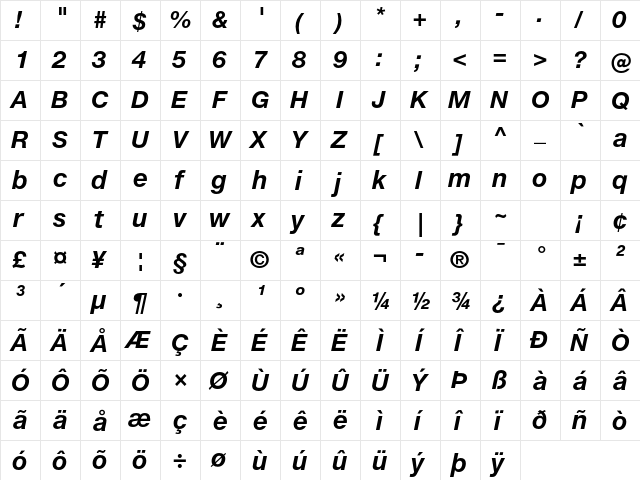
Helvetica Neue ET Pro 76 Bold Italic
| Foundry | Linotype GmbH |
| Designer | Linotype Design Studio |
Design Context for Helvetica Neue ET Pro Typeface
Helvetica Neue ET Pro offers clean, dependable letterforms without strong stylistic allegiance, making it a practical choice for designers who need flexibility. The slanted form adds forward momentum and visual energy. The heavy weight commands attention and anchors typographic hierarchies.